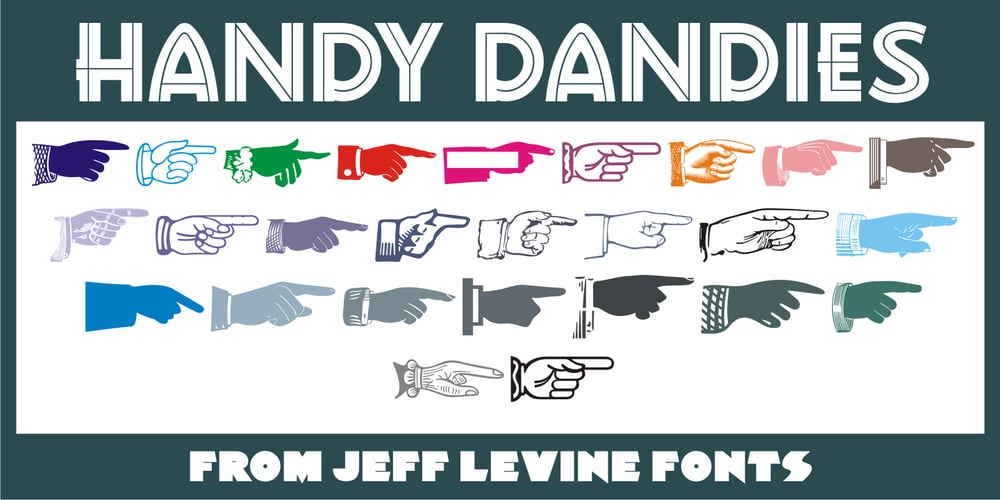
Handy Dandies JNL Font Family was designed by Jeff Levine and published by Jeff Levine. Handy Dandies JNL contains 1 styles and family package options. Handy Dandies JNL is a third collection from Jeff Levine Fonts of pointing hands along with a few card holders thrown in for good measure. The images were re-drawn from vintage source material and these embellishments (also known as “Printer’s Fists” or “Bishop’s Fists”) will enhance wood type projects as well as contemporary designs.